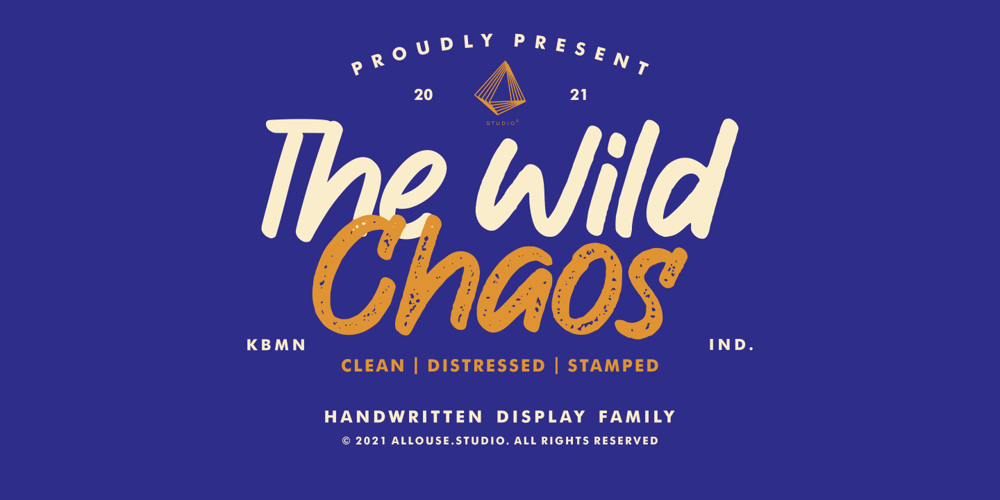
The Wild Chaos
The Wild Chaos font
The Wild Chaos Font Family was designed by Fachrizal Yusuf and published by Allouse Studio. The Wild Chaos contains 2 styles and family package options. The Wild Chaos a Handwritten Display Font Family.Come with three styles that will give you an extra impression. Enjoy!The Wild Chaos also come with Multi-Lingual Support for each style.We highly recommend using a program that supports OpenType features and Glyphs panels like many of Adobe apps and Corel Draw, so you can see and access all Glyph variations.The Wild Chaos is perfect for any tittles, logo, product packaging, branding project, megazine, social media, wedding, or just used to express words above the background.